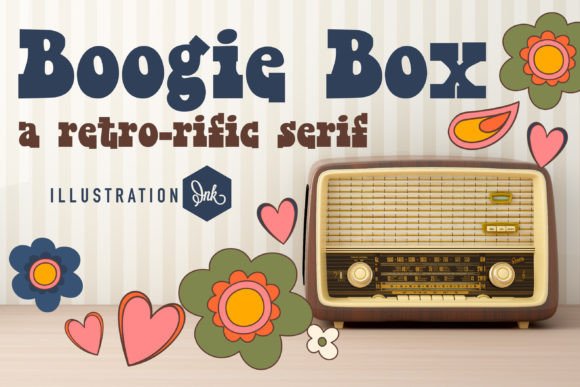
Unleash Your Creativity with Boogie Box Font
Are you tired of using the same old fonts for your creative projects? Look no further than the Boogie Box Font, an incredibly unique display font that’s sure to become a true favorite among designers and crafters. Masterfully designed to bring each of your creative ideas to the highest level, Boogie Box Font is the perfect addition to your font collection.
What Makes Boogie Box Font So Special?
Boogie Box Font is a one-of-a-kind display font that’s designed to make a statement. Its unique and playful design makes it perfect for a variety of creative projects, from DIY crafts to professional design work. With its bold and eye-catching letters, Boogie Box Font is sure to grab attention and leave a lasting impression.
Key Features of Boogie Box Font
• Unique Design: Boogie Box Font features a truly unique design that’s unlike any other font out there. Its bold and playful letters are sure to make your creative projects stand out.
• High-Quality: Boogie Box Font is a high-quality font that’s designed to be clear and legible, even at large sizes.
• Versatile: Boogie Box Font is perfect for a variety of creative projects, from DIY crafts to professional design work.
Boogie Box Font is perfect for designers and crafters who are looking to add a unique touch to their creative projects. Whether you’re working on a DIY craft project or a professional design project, Boogie Box Font is sure to bring a fresh and creative perspective to your work.
Ideas for Using Boogie Box Font
• DIY Crafts: Use Boogie Box Font to add a personal touch to your DIY craft projects, such as handmade cards, gift tags, and scrapbook pages.
• Graphic Design: Use Boogie Box Font to create eye-catching graphics, such as posters, flyers, and brochures.
• Sign Making: Use Boogie Box Font to create bold and eye-catching signs, such as store signs, event signs, and directional signs.
• Social Media Graphics: Use Boogie Box Font to create engaging social media graphics, such as Facebook posts, Instagram posts, and Twitter headers.
Tips for Getting the Most Out of Boogie Box Font
• Experiment with Different Sizes: Boogie Box Font looks great at a variety of sizes, so don’t be afraid to experiment with different sizes to find the one that works best for your project.
• Pair with Other Fonts: Boogie Box Font pairs well with a variety of other fonts, so try pairing it with different fonts to create a unique and interesting look.
• Use in Combination with Images: Boogie Box Font looks great in combination with images, so try using it to add text to your photos and graphics.
Boogie Box Font is an incredibly unique and versatile display font that’s perfect for designers and crafters who are looking to add a fresh and creative perspective to their work. With its bold and eye-catching letters, Boogie Box Font is sure to bring each of your creative ideas to the highest level. So why wait? Download Boogie Box Font today and start unleashing your creativity!